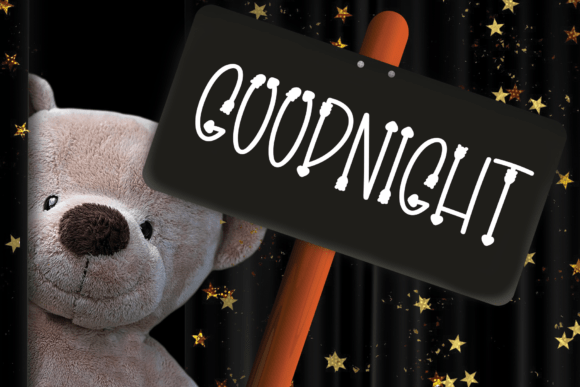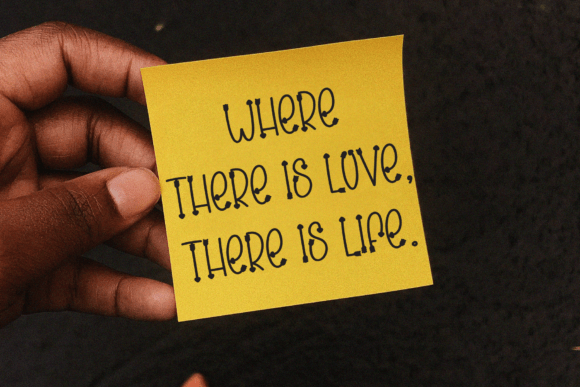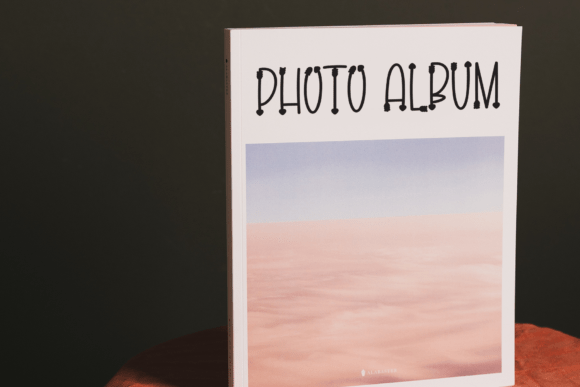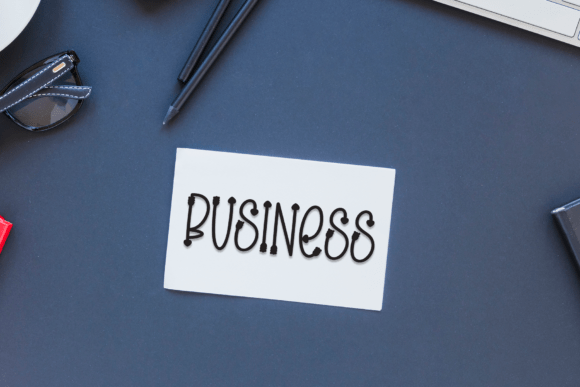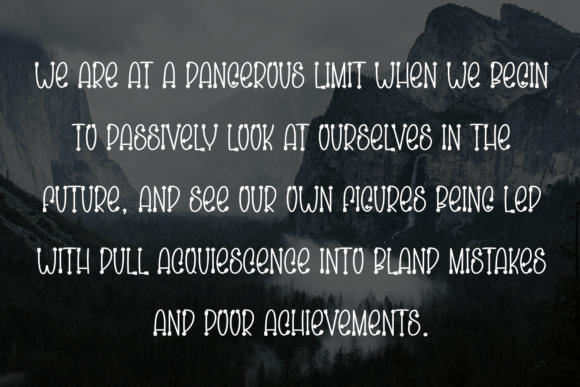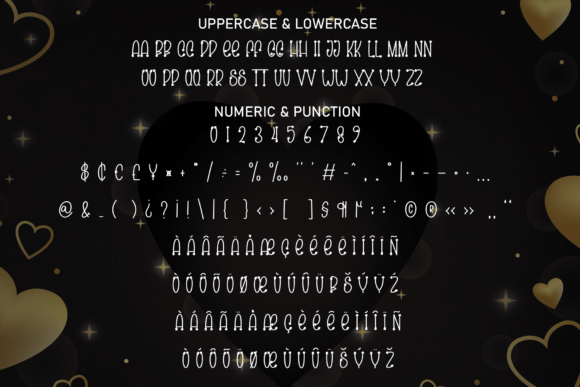
Enter the I Love February Font, a special creative product designed to elevate your designs and take them to the next level. This latest style letter font is perfect for a wide range of applications, from wall displays to wedding invitations, social media post logos, and product packaging. What sets it apart is its versatility, ease of use, and long-term support, making it an invaluable asset for designers of all levels.
I Love February Font Key Features
- Unique Characteristics: The I Love February Font features a playful, handwritten style with decorative flourishes, making it perfect for adding a touch of whimsy to designs.
- Font Weight and Style: The I Love February Font is available in regular and bold weights, as well as an italic style, providing versatility for different design applications.
- Scalability: The font is designed to be highly scalable, allowing it to be used effectively in a range of design contexts, from small text to large headlines.
I Love February Font Review
Overall, I think “I Love February Font” is a decent addition to any font collection. ✨ The rounded, whimsical style works well for projects that need a touch of playfulness, such as children’s books, greeting cards, or social media graphics. The font’s unique characteristics, like the exaggerated curves and irregularities, can add a lot of visual interest to a design.
Here are some specific things that work well:
- ✨ Great for hand-drawn or handwritten text, adding a personal touch to designs
- ✨ Can be used to create eye-catching headings and titles
- ⚠️ May not be suitable for formal or professional projects, due to its playful and informal style
- ⚠️ Can be difficult to read in certain font sizes or at small text sizes
- ⚠️ Limited character set, which may limit its use in longer blocks of text
Overall, I’d give “I Love February Font” 3.5 out of 5 stars. While it’s a fun and creative font, it may not be the best choice for every project. Use it sparingly, and it can add a lot of personality to your designs.
I Love February Font: A Practical Application Guide
The “I Love February Font” is commonly used for Valentine’s Day-themed designs, such as greeting cards, social media posts, and advertisements. It’s also suitable for use in general design projects, such as blog posts, brochures, and flyers.